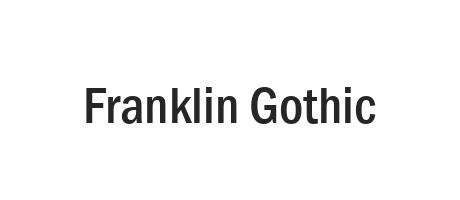
Franklin Gothic
By American Type Founders
Category  Sans-serif
Franklin Gothic has been used in many advertisements and newspaper headlines. Appearing in a variety of media from books to billboards, the typeface maintains a high profile.. Read More